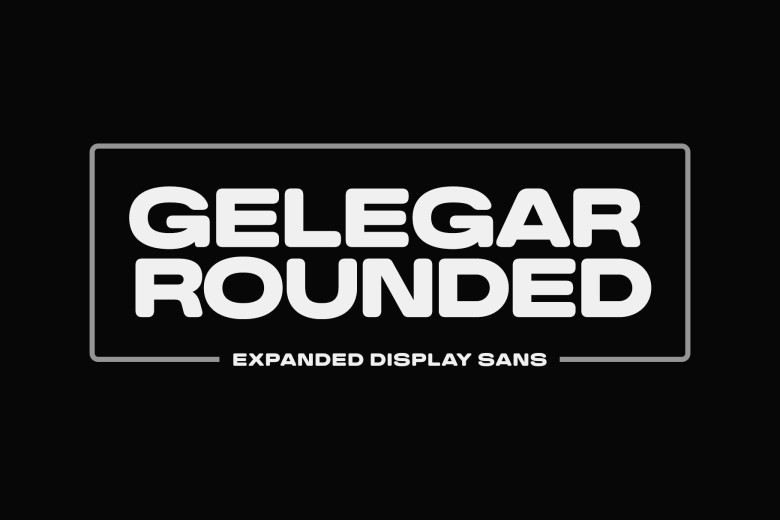
Gelegar Rounded Font
Gelegar Rounded Font is an ultra-wide display sans-serif font designed to leave an emotional and visual impactful message. Ideal for posters, social media posts or headlines designed to draw in audiences; also ideal for large format prints and monumental titles.
Gelegar Rounded Display Sans Font